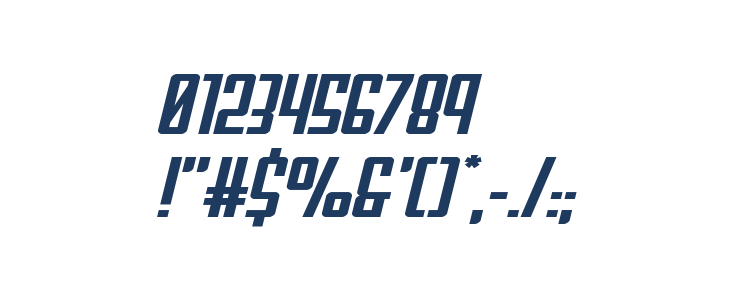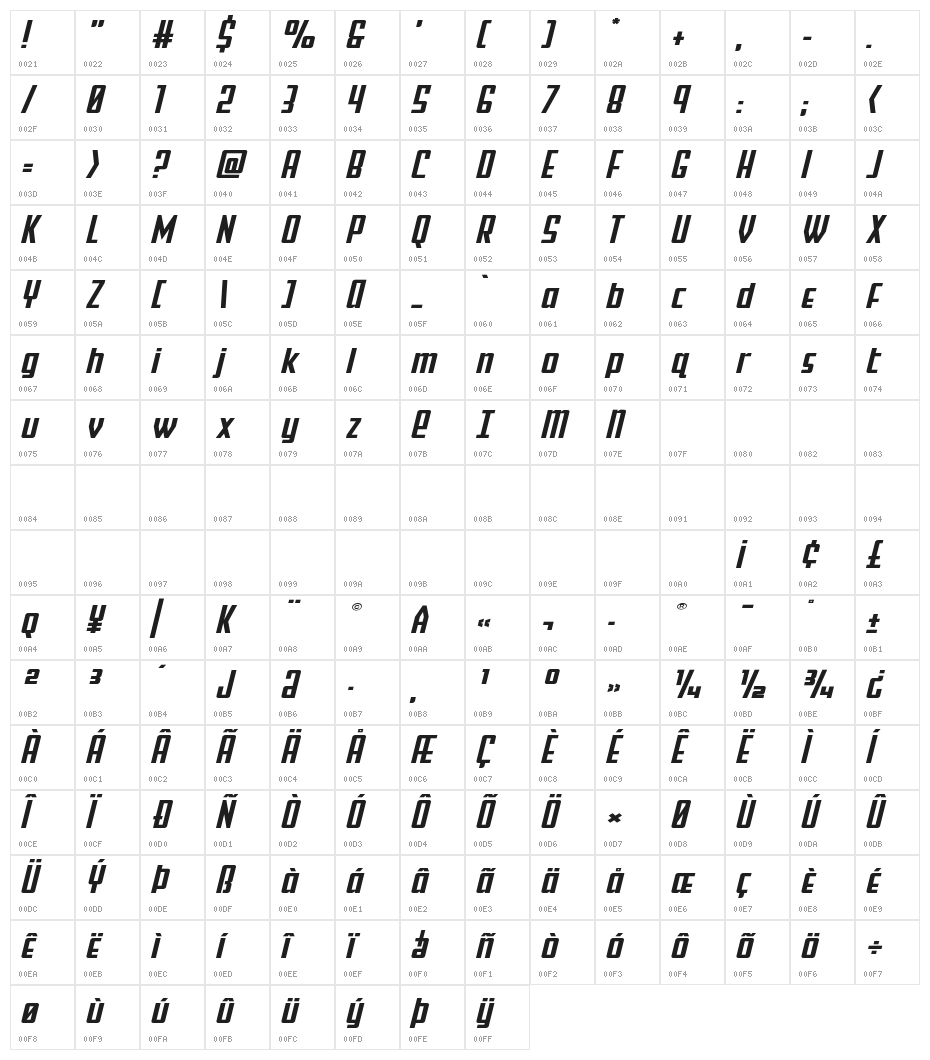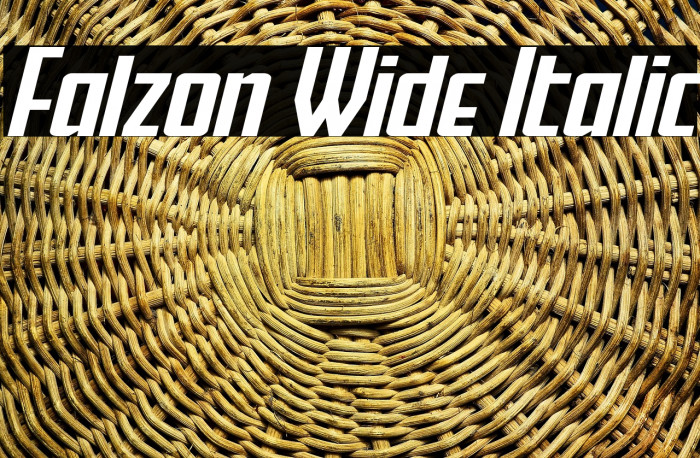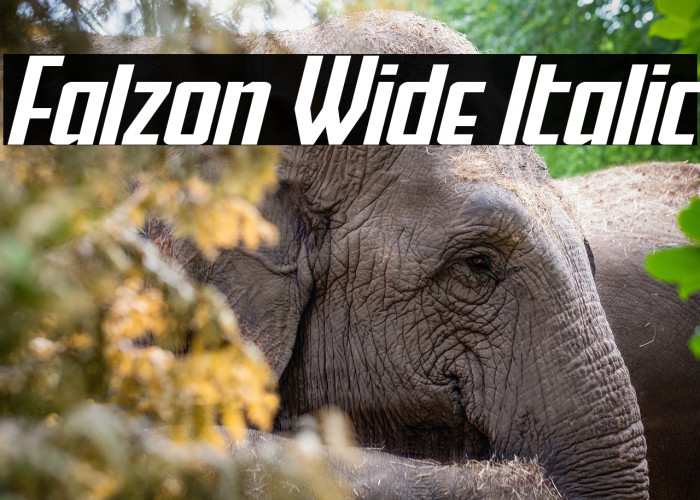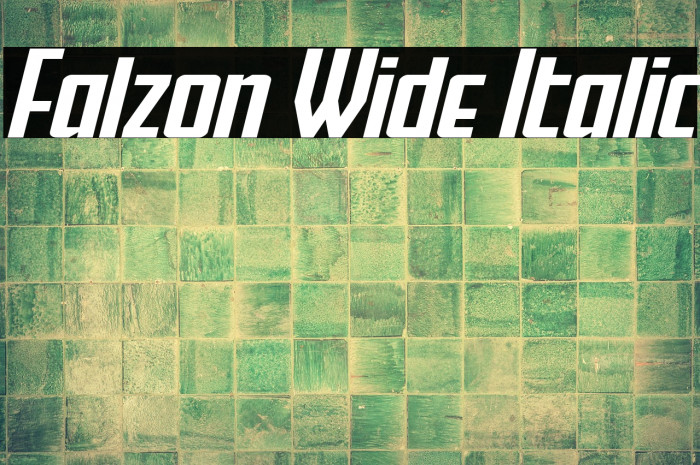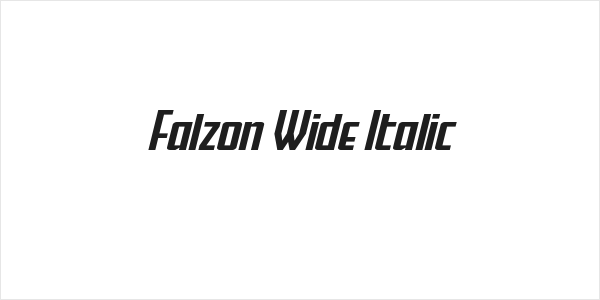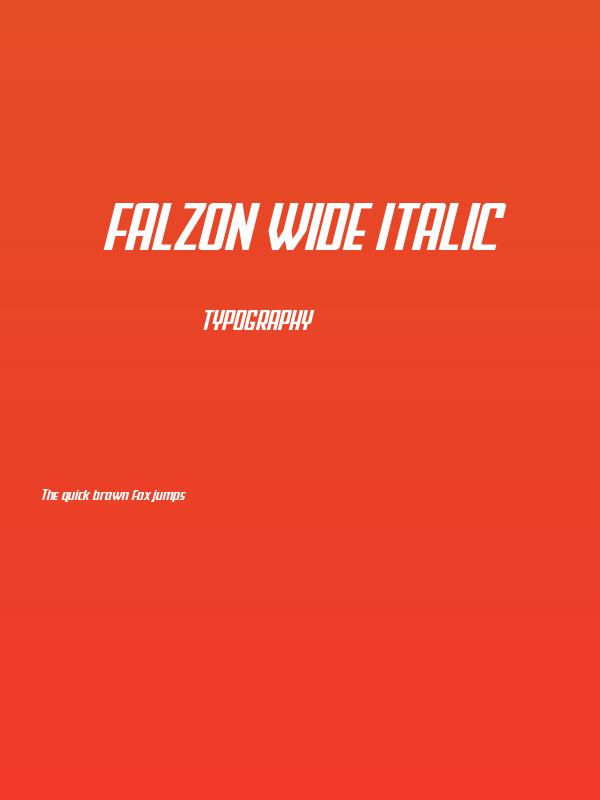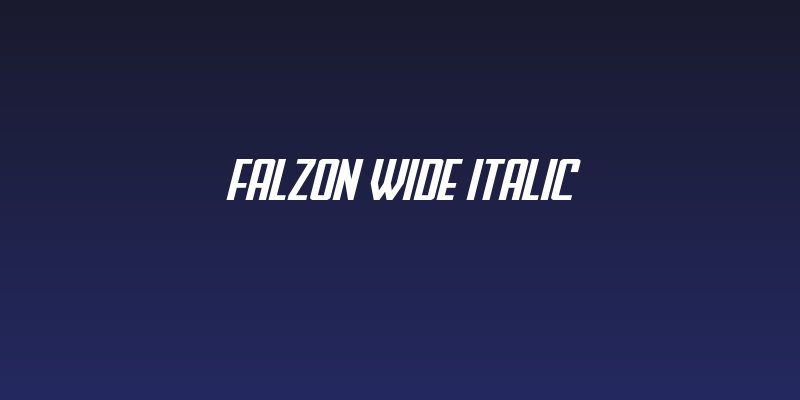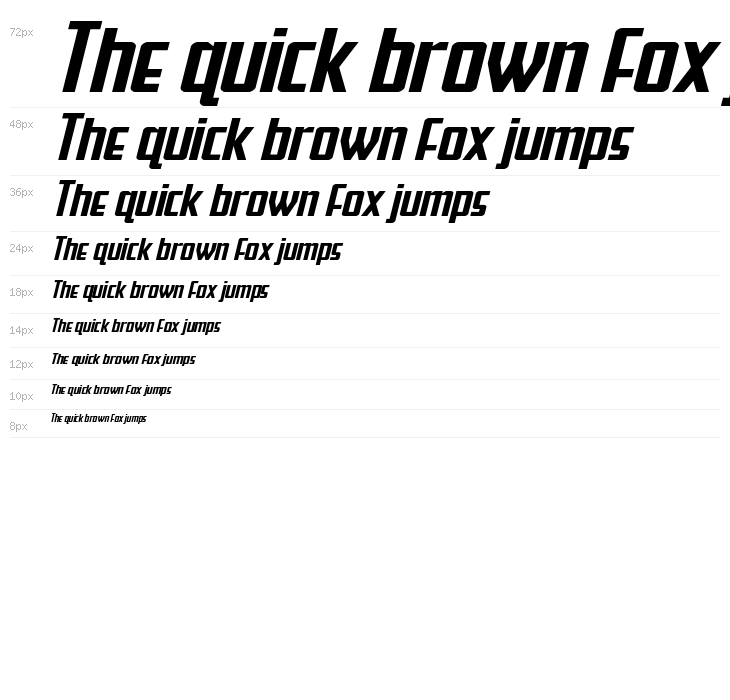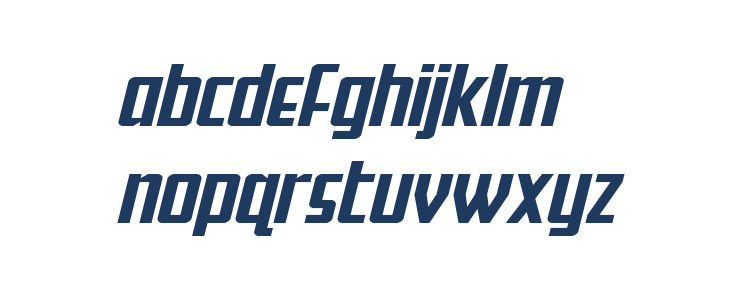
Falzon Wide Italic Font
Falzon Wide Italic Description
This font features a bold and dynamic style with a distinct italic slant, giving it a sense of motion and energy. The characters are wide and have a strong presence, making them highly legible and impactful. The design is modern and sleek, with clean lines and sharp angles that contribute to its contemporary appeal. The uppercase and lowercase letters maintain a consistent style, while the numerals and special characters are designed to complement the overall aesthetic. This font is ideal for projects that require a bold statement and a modern touch.
| Proposed Projects | Ideal for sports branding, dynamic posters, modern advertisements, and impactful headlines. |